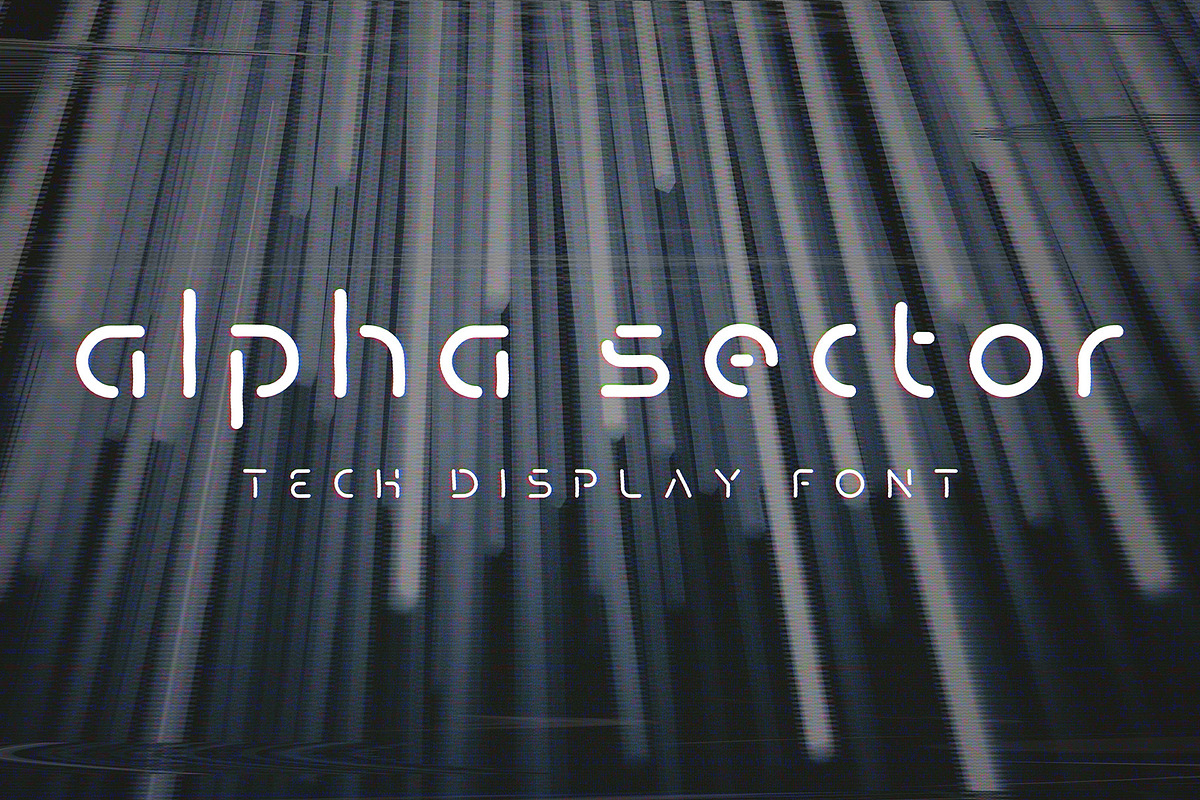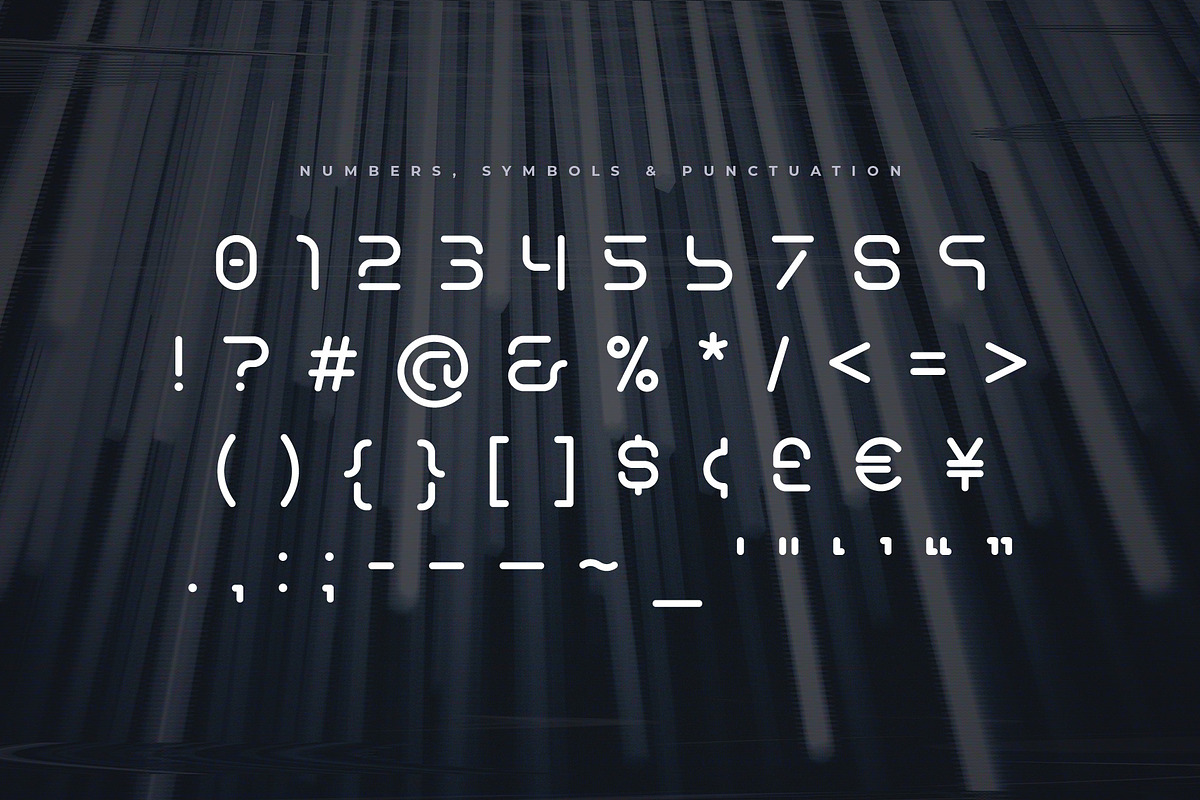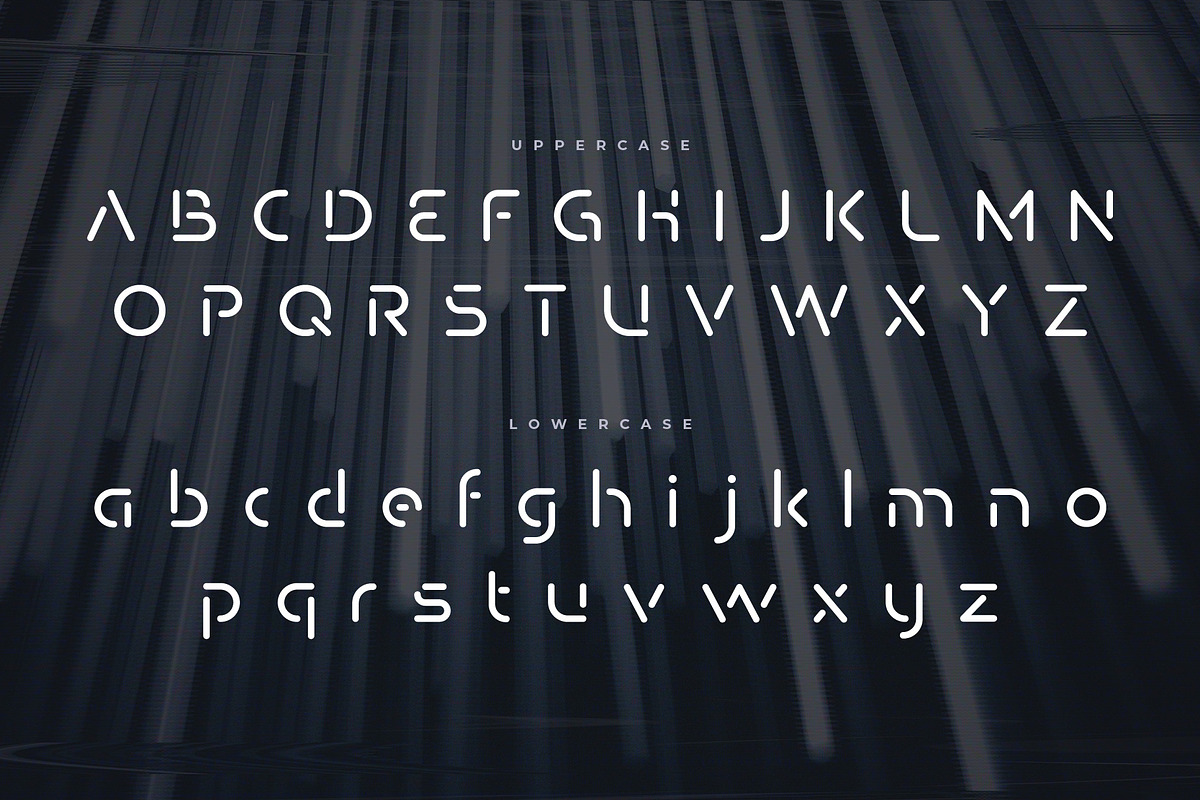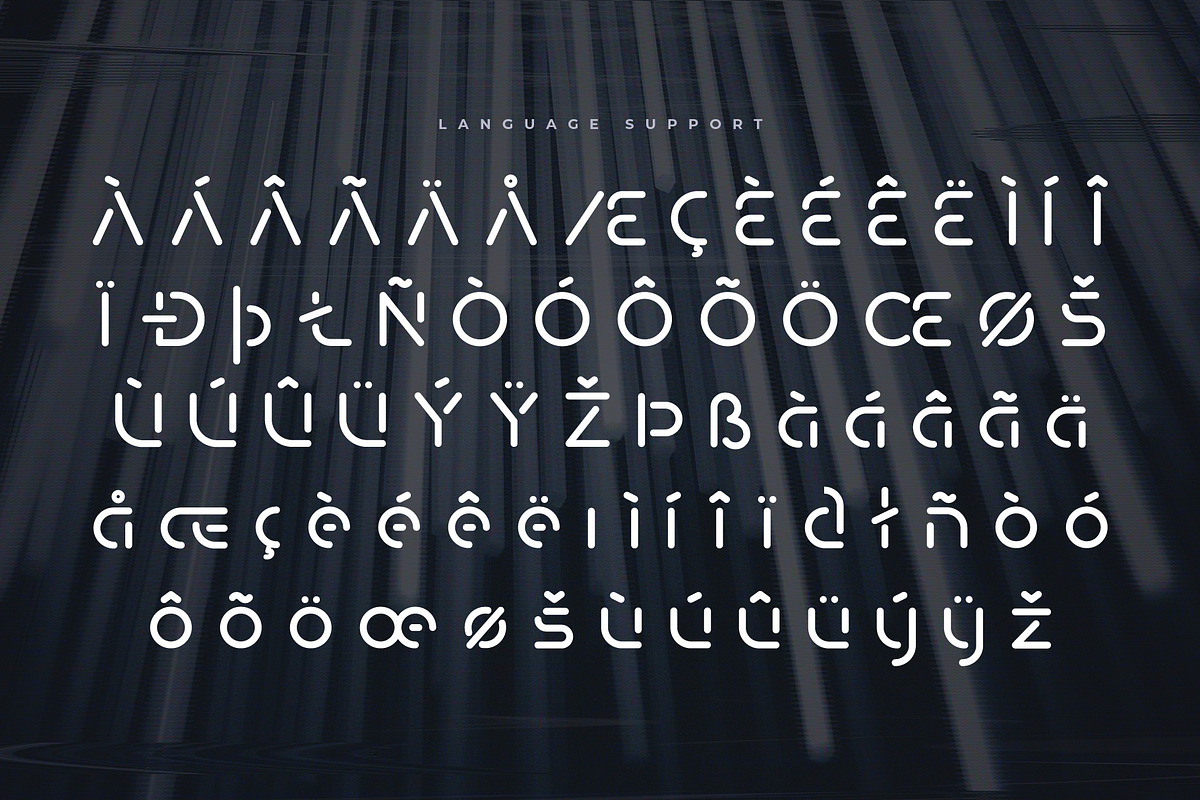
Alpha Sector - Tech Font
Alpha Sector a futuristic tech display typeface inspired by sci-fi and hi tech themes. On a deeper level, Alpha Sector combines minimal geometric letterforms with soft, rounded corners and edges for an aesthetically pleasing appearance. It is more subtle some other more aggressive futuristic tech fonts, and lends itself well to modern, sophisticated projects.
Alpha Sector features all uppercase and lowercase glyphs, all numbers 0-9, most common symbols and punctuation and also includes Western European language support (see preview images for included accents and glyphs). It is suitable for decorative/display purposes only.